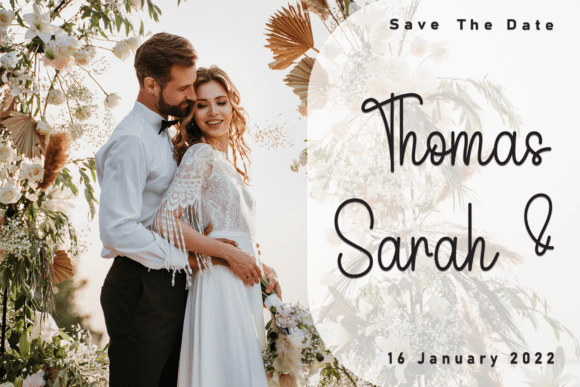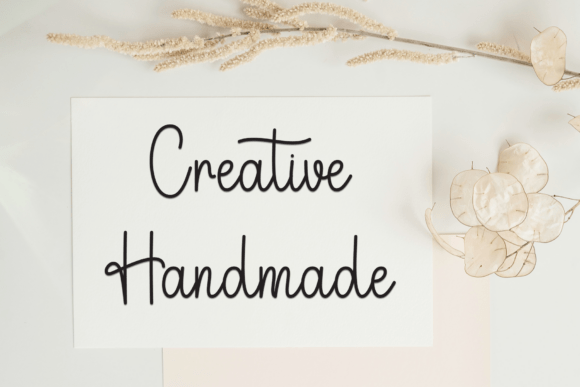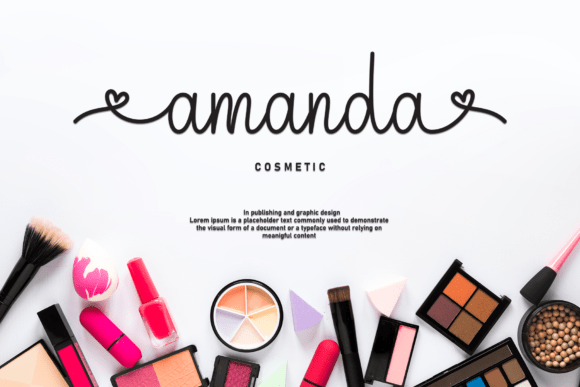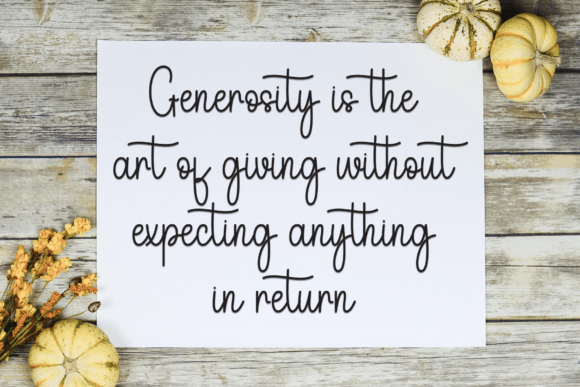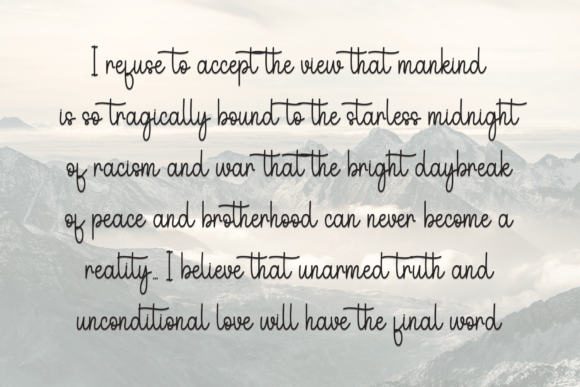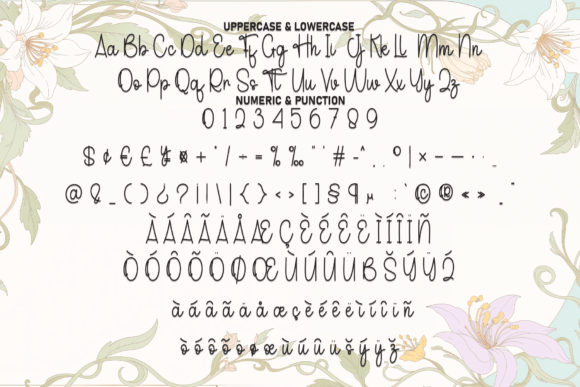
Discover the Joy of Handwritten Charm
Have you ever found yourself in a creative flow, scribbling away in a notebook, and suddenly, a smile spreads across your face as you see the magic unfold? That’s exactly the feeling you’ll get when working with the enchanting Angelina Font. This delightful handwritten display font is the perfect blend of whimsy and elegance, making it a dream come true for designers seeking to add a touch of joy to their projects.
Whether you’re crafting a wedding invitation or a unique greeting card, Angelina Font effortlessly breathes life into any design, infusing it with a sprinkle of fanciful enjoyment. As a designer, you’ll appreciate the versatility and charm of this typeface, making it an invaluable addition to your design arsenal.
- Unique Characteristics: Angelina Font features a unique blend of elegant and modern design elements, including flowing curves, geometric shapes, and subtle texture, making it a standout choice for creative projects.
Angelina Font Review
At first glance, the Angelina font seems to have it all. The elegant, cursive design is sure to catch the eye of anyone looking for a sophisticated, high-end feel.
- Beautifully crafted script style, perfect for adding a touch of elegance to any design
- Highly legible, even at smaller font sizes
- Available in a range of weights and styles, making it easy to find the perfect fit for your project
However, as with any font, there are some limitations to consider.
- May not be suitable for projects that require a bold, sans-serif font
- Some users may find the font too ornate or distracting, especially in large blocks of text
- Not as extensive a character set as some other fonts, which may cause issues with certain languages or special characters
Overall, the Angelina font is a solid choice for designers looking to add a touch of sophistication and elegance to their projects. While it may not be suitable for every project, it’s a great option for those who need a high-end, cursive font.
Getting the Most Out of Angelina Font
To get the most out of Angelina font, consider the following tips:
- Use it for titles and headings to add a touch of elegance
- Pair it with a sans-serif font for body text to create a visually appealing contrast
- Experiment with different font sizes and colors to create a unique look
Angelina font is suitable for a variety of use cases, including:
- Personal branding and social media graphics
Alternatives to Angelina Font for Designers
The Great Vibes Font is a modern, elegant, and cursive script font. It’s ideal for use in wedding invitations, magazine titles, and other creative projects where a touch of sophistication is needed. Great Vibes Font is more elegant and refined compared to Angelina Font, with a more subtle flair.
The Carolyna Pro Font is a beautiful, high-end script font that exudes luxury and sophistication. It’s perfect for use in high-end branding, wedding invitations, and other projects where a touch of glamour is needed. Carolyna Pro Font is more dramatic and luxurious compared to Angelina Font, with a more fluid and connected feel.